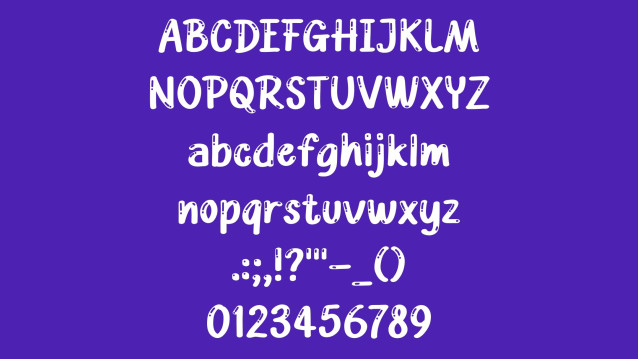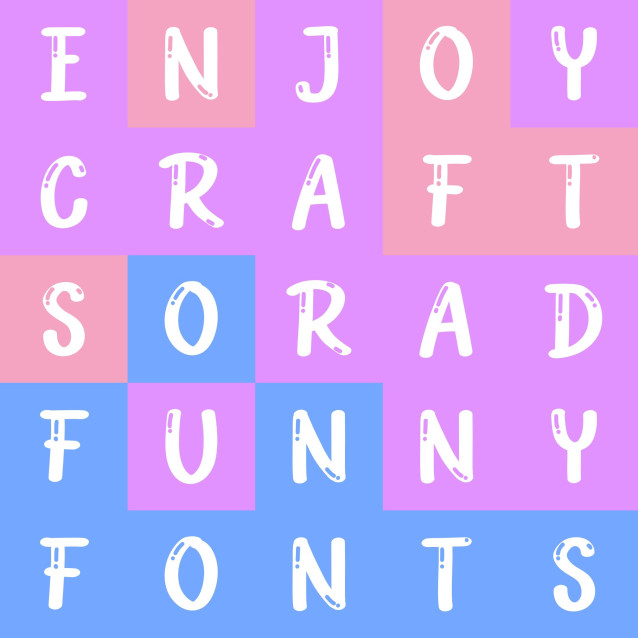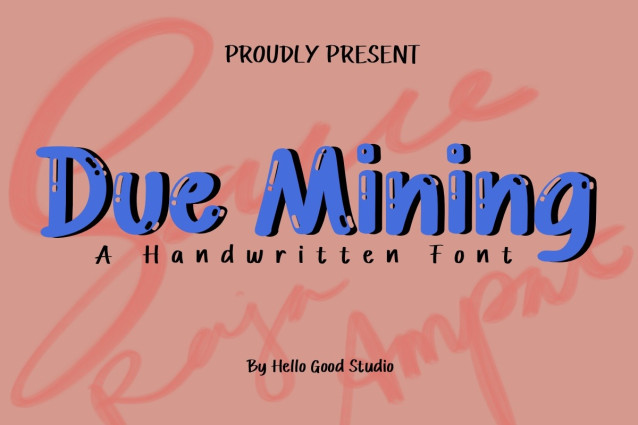
Due Mining Font
Due Mining Font a sweet and friendly handwritten font. Cute and fun, this font is ideal for writing wedding invitations, cards, or any other design that might need a fun touch!